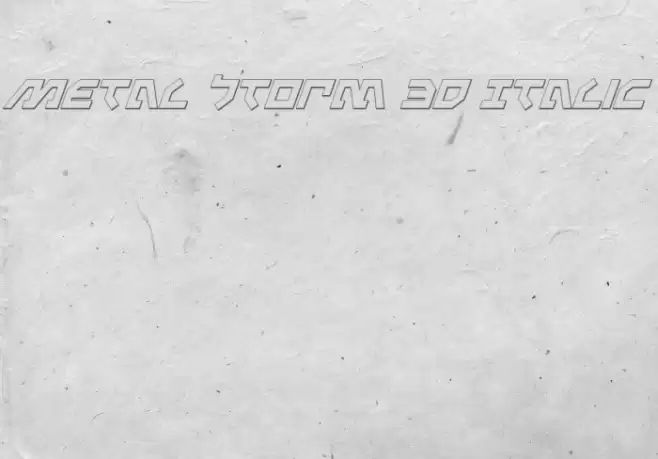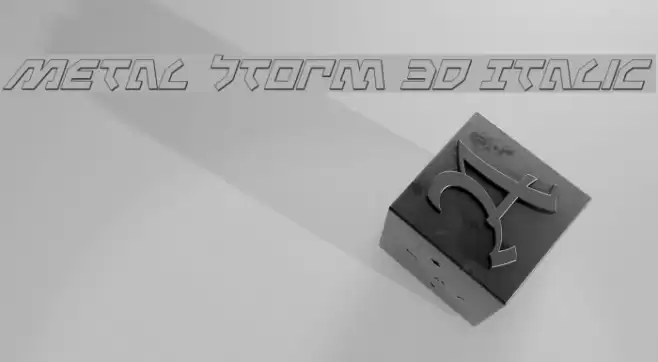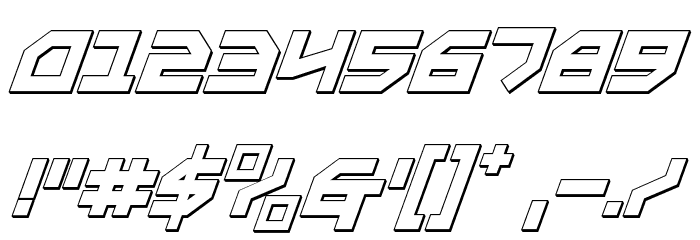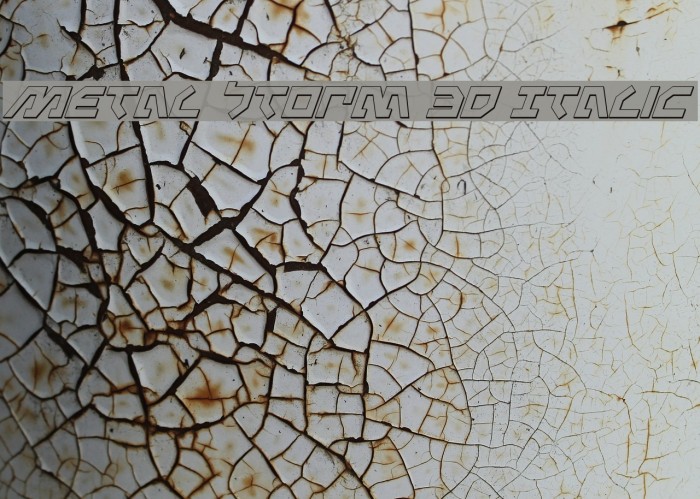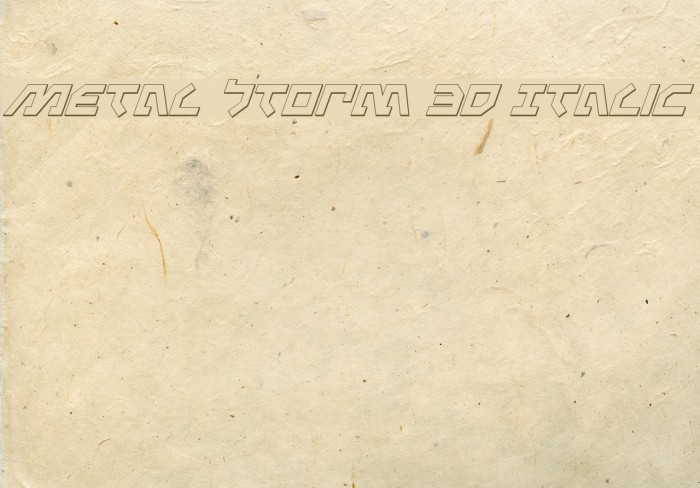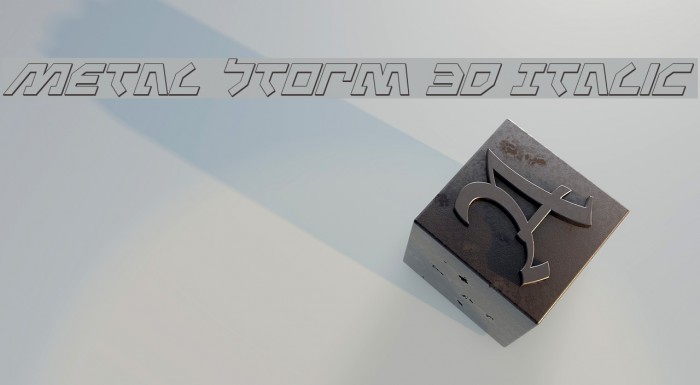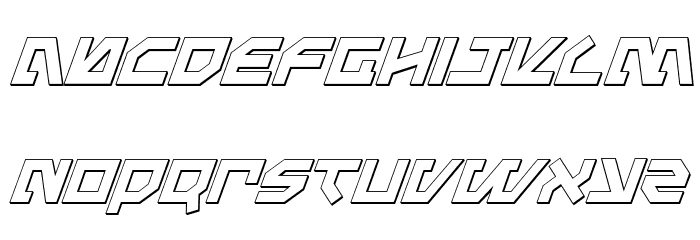
Metal Storm 3D Italic Font
Metal Storm 3D Italic Description
This font features a bold, futuristic design with a three-dimensional effect, giving it a dynamic and edgy appearance. The characters are angular and geometric, with sharp edges and a sense of motion, enhanced by the italic slant. The uppercase and lowercase letters maintain a consistent style, while the numerals and special characters complement the overall aesthetic. The font's unique structure makes it stand out, ideal for projects that require a modern and impactful look.
A bold, futuristic 3D italic font with angular, geometric characters from Sci-fi fonts.
- Proposed Projects: Ideal for sci-fi themed designs, video game titles, movie posters, and tech branding.